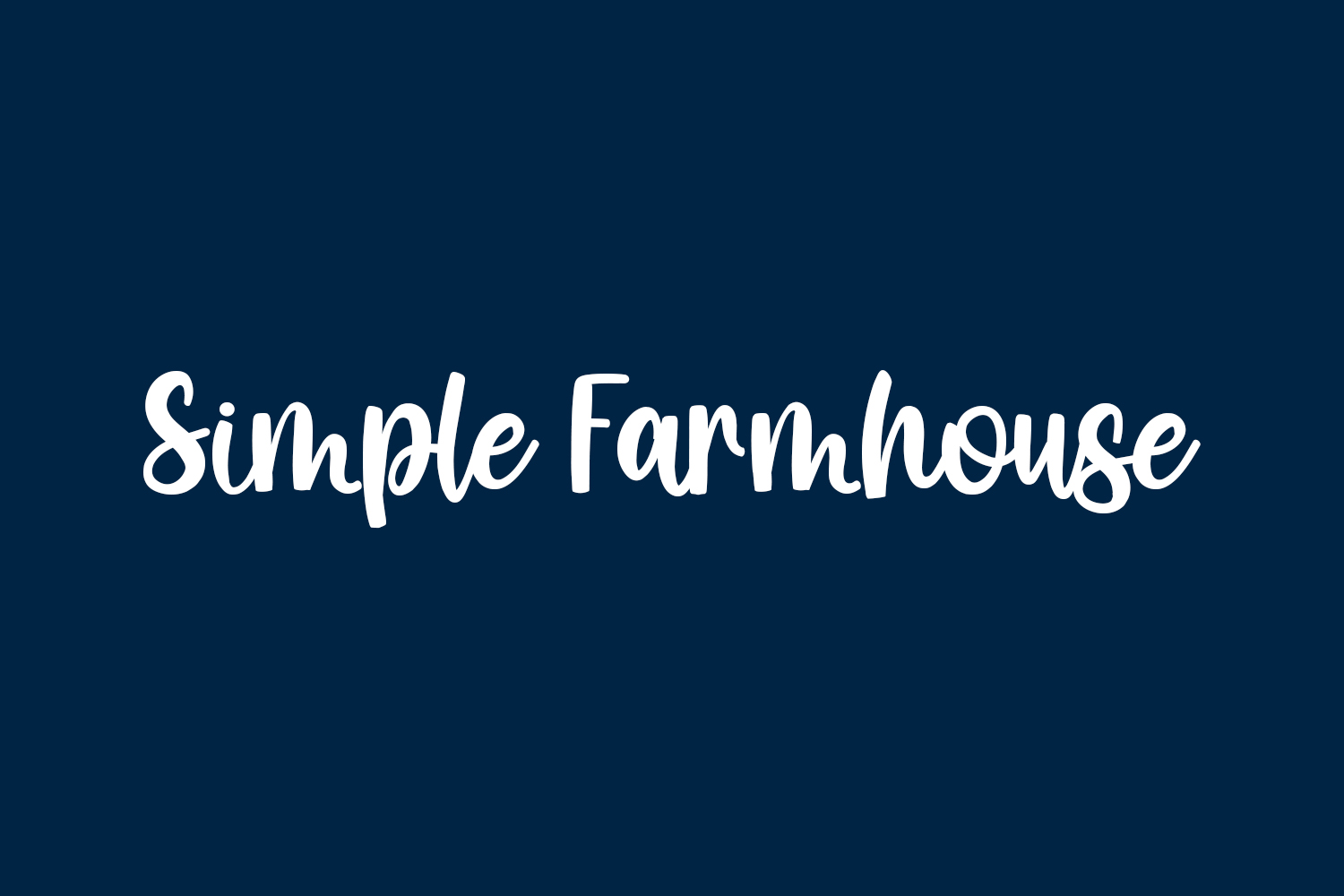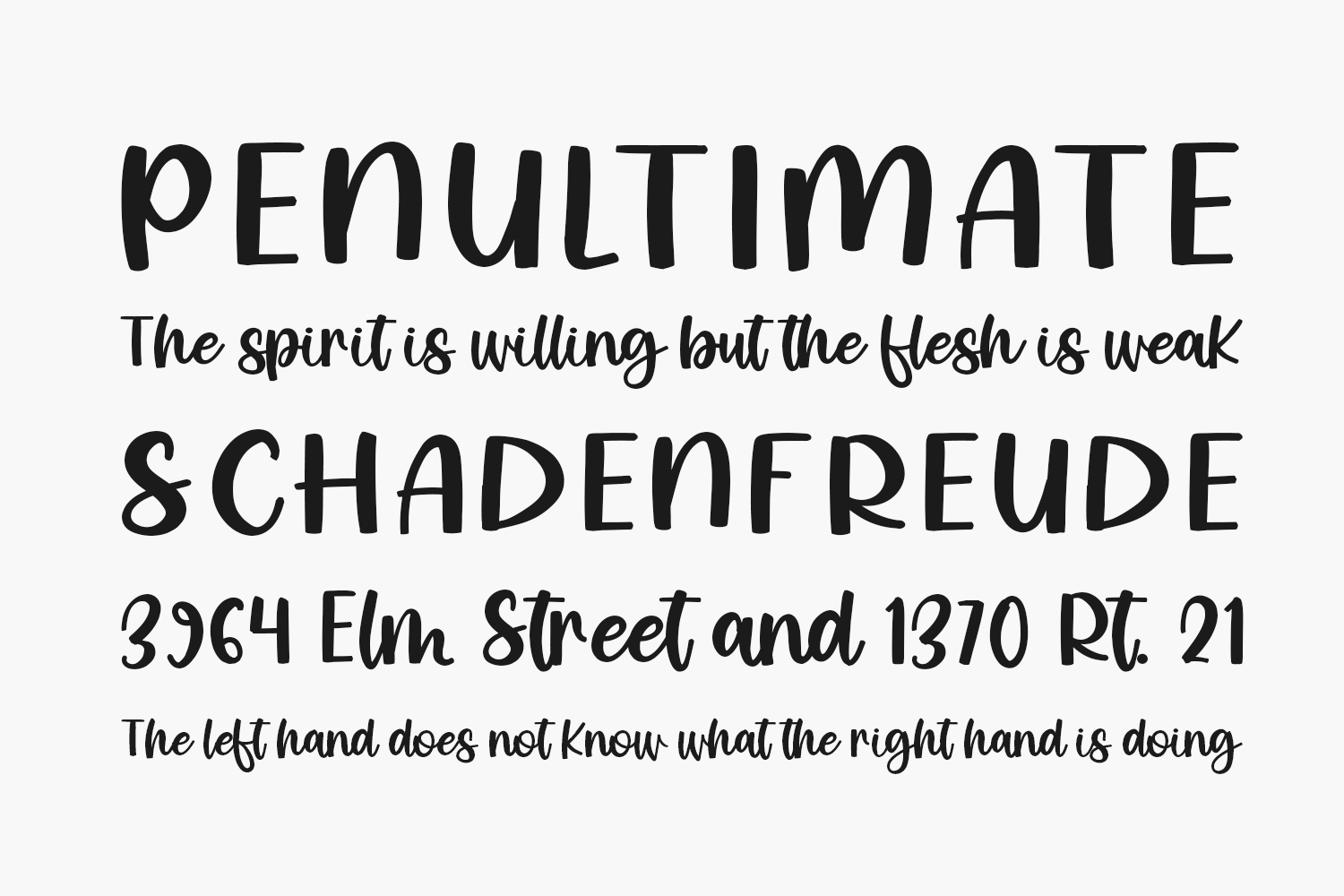
Simple Farmhouse Free Font – Rustic Script for Cozy & Handwritten Design Projects
Simple Farmhouse is a warm and charming handwritten script font designed by Goodrichees to bring a cozy, homemade aesthetic to your creative projects. With its flowing strokes and casual curves, this free decorative typeface works perfectly for crafting rustic logos, greeting cards, wedding invitations, product labels, and more. Available in TTF and OTF formats — ideal for designers seeking a natural, expressive handwriting style that instantly connects with audiences through authenticity.
Why Choose Simple Farmhouse?
- Rustic Handwriting Style: Combines organic flow and soft curves for a warm, personal touch perfect for country-style visuals.
- Ideal for Greeting Cards & Décor: Perfect for home décor tags, rustic wedding stationery, or DIY crafts needing a friendly tone.
Where to Use Simple Farmhouse?
Simple Farmhouse shines across a variety of creative applications:
- Logos & Branding: Adds warmth and charm to brand identities for boutique shops, handmade studios, or rural lifestyle blogs.
- Wedding Invitations: Brings a rustic beauty to formal stationery sets, RSVP cards, and bridal name typography with a hand-drawn appeal.
- Greeting Cards & Letters: Enhances thank-you notes, birthday cards, or love letters with a warm, human feel.
- Packaging Design: Great for product labels on candles, soaps, or artisanal food packaging requiring a vintage look.
- Social Media Graphics: Creates bold text overlays for Instagram Stories, Pinterest pins, TikTok videos, and YouTube banners with a cozy vibe.
Design Tips with Simple Farmhouse